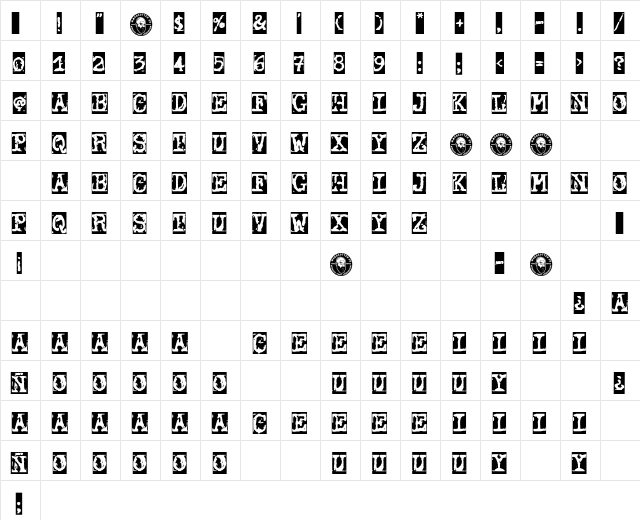
Complete Typewriter Grunge Regular glyph index. Displaying only characters natively supported by Typewriter Grunge Regular font.
Typewriter Grunge embraces imperfection - its rough, textured character adds raw authenticity to designs that want to feel lived-in and unconventional.
Pro Tip: Use Typewriter Grunge at larger sizes where the texture and irregularity of each letterform can be clearly seen - it loses its character at small sizes.